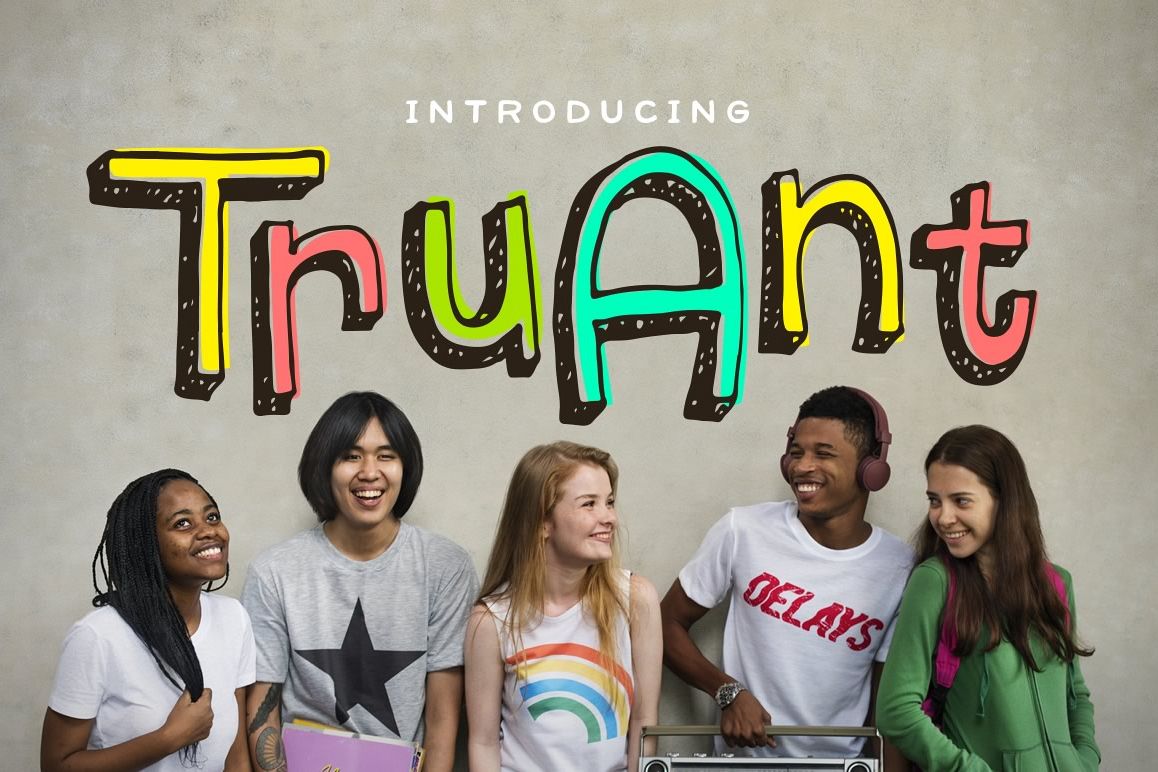
Truant Font
Introducing: Truant! A charming font that conjures up memories of those long school days only survived by passing notes with your best friend. Truant comes with an alternate set of characters which helps give your projects a unique, hand-drawn look. Also included is a bonus color SVG version. OpenType-SVG fonts can be used in programs like Photoshop CC 2017+, Illustrator CC 2018+, or InDesign CC 2019+.